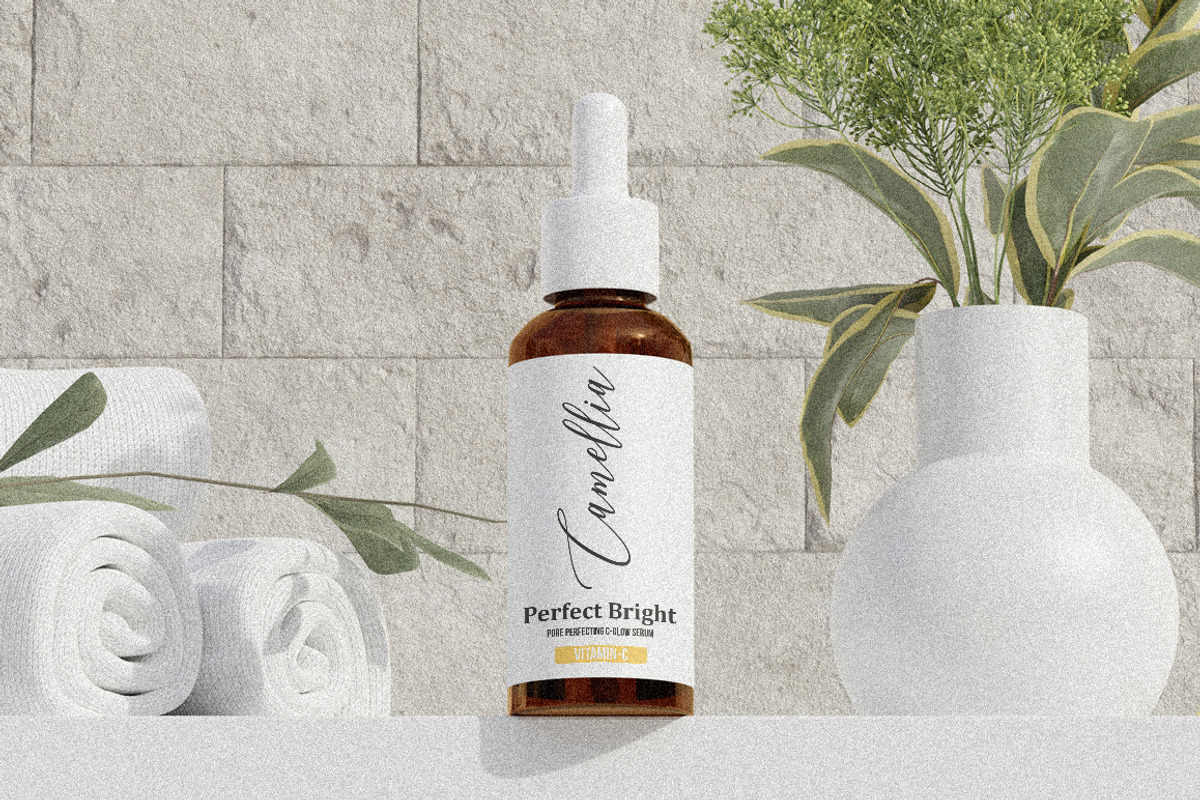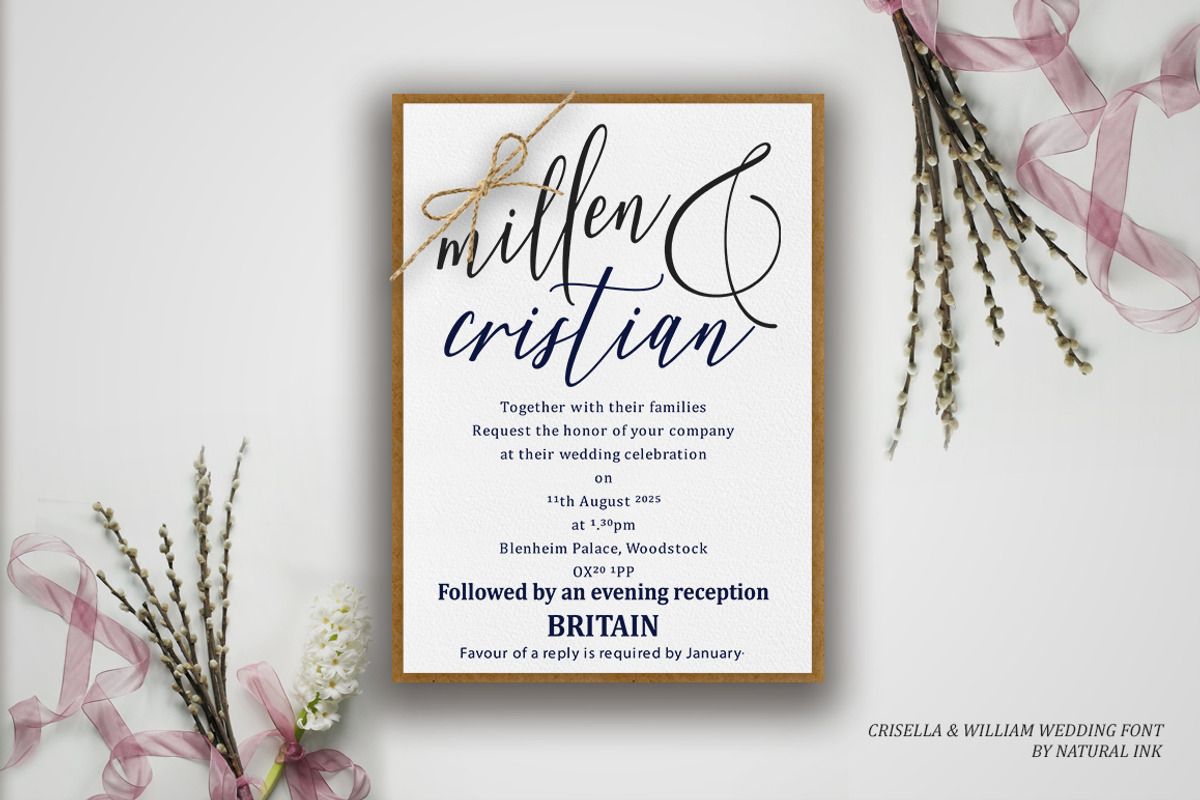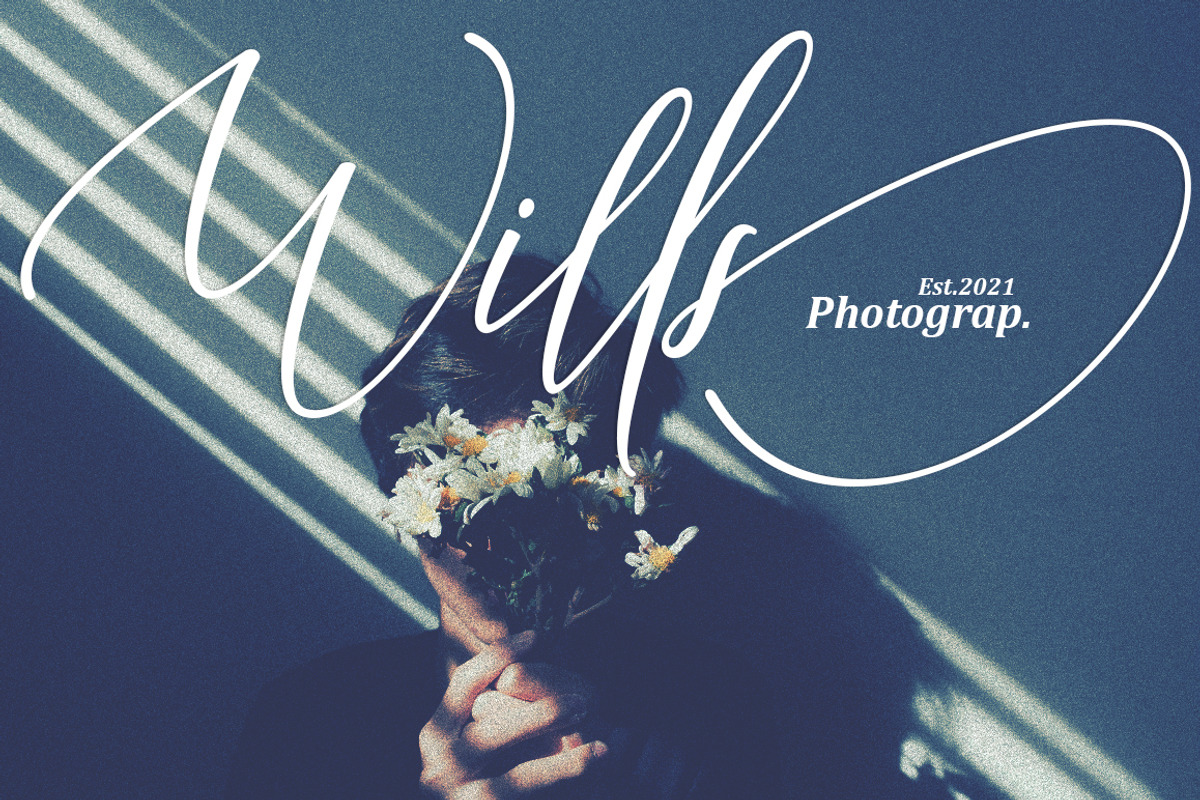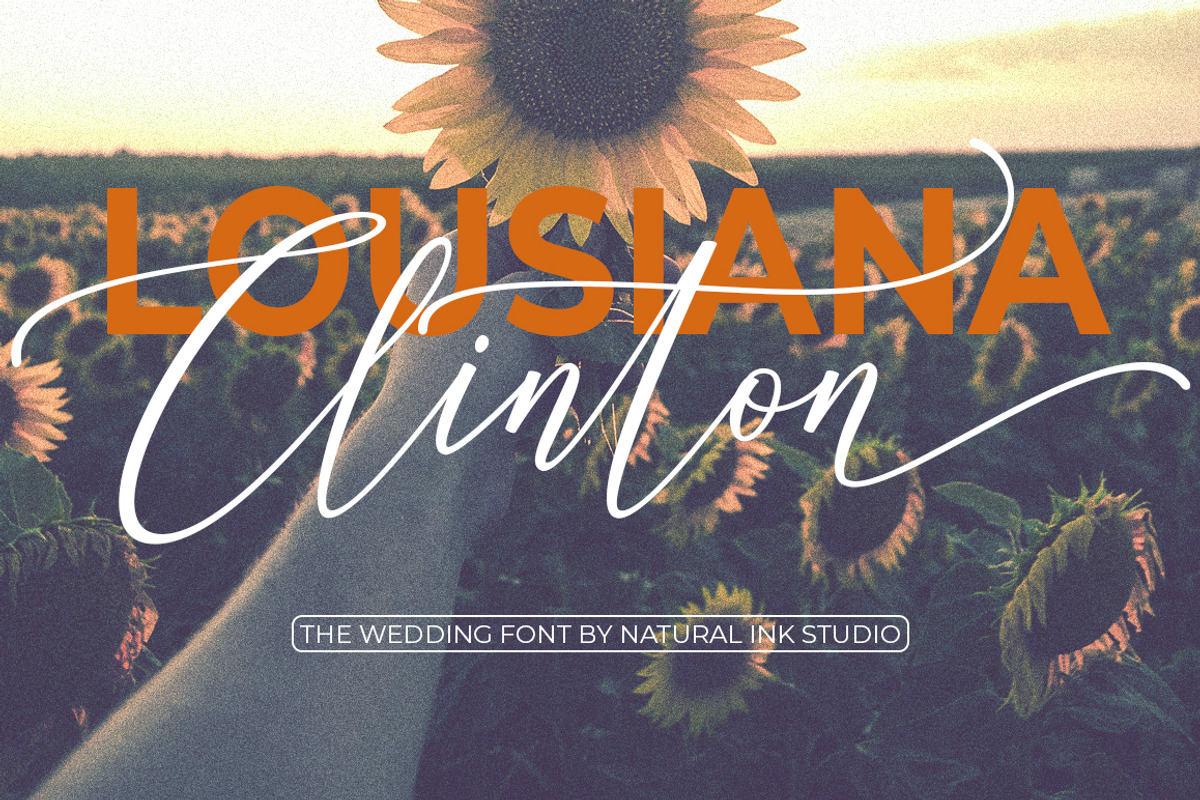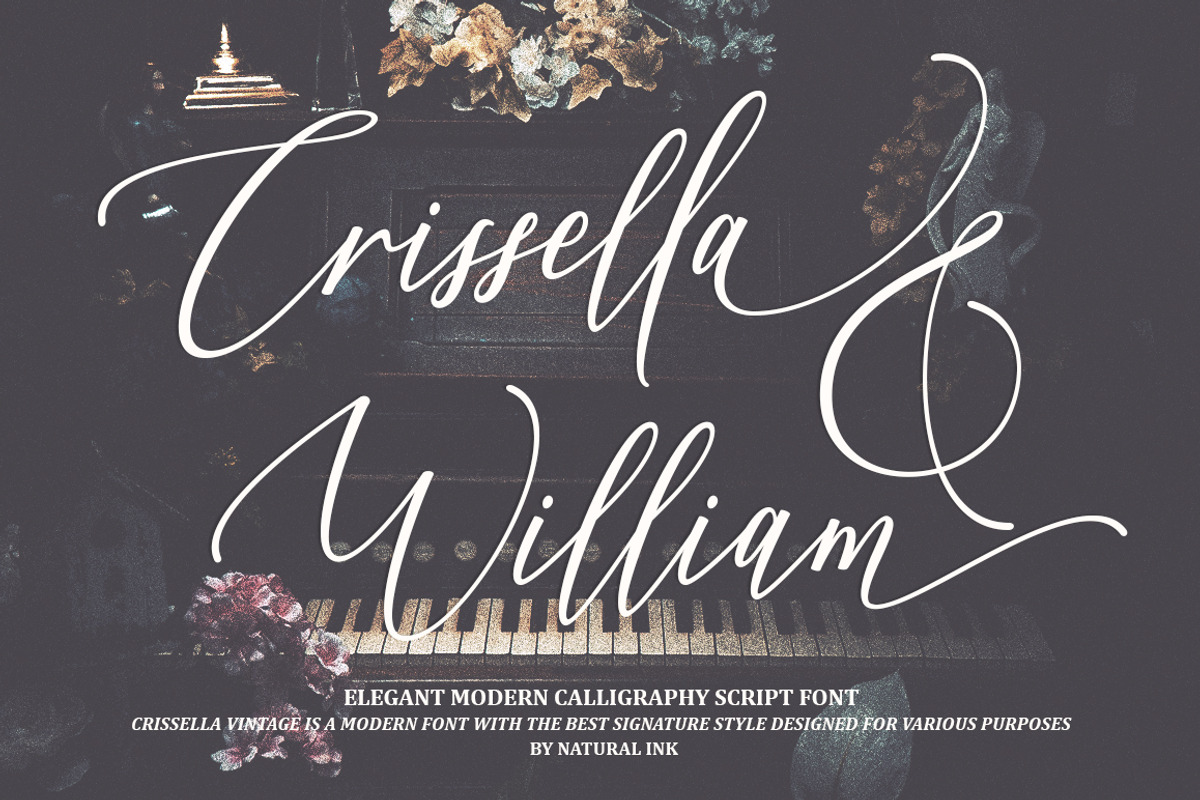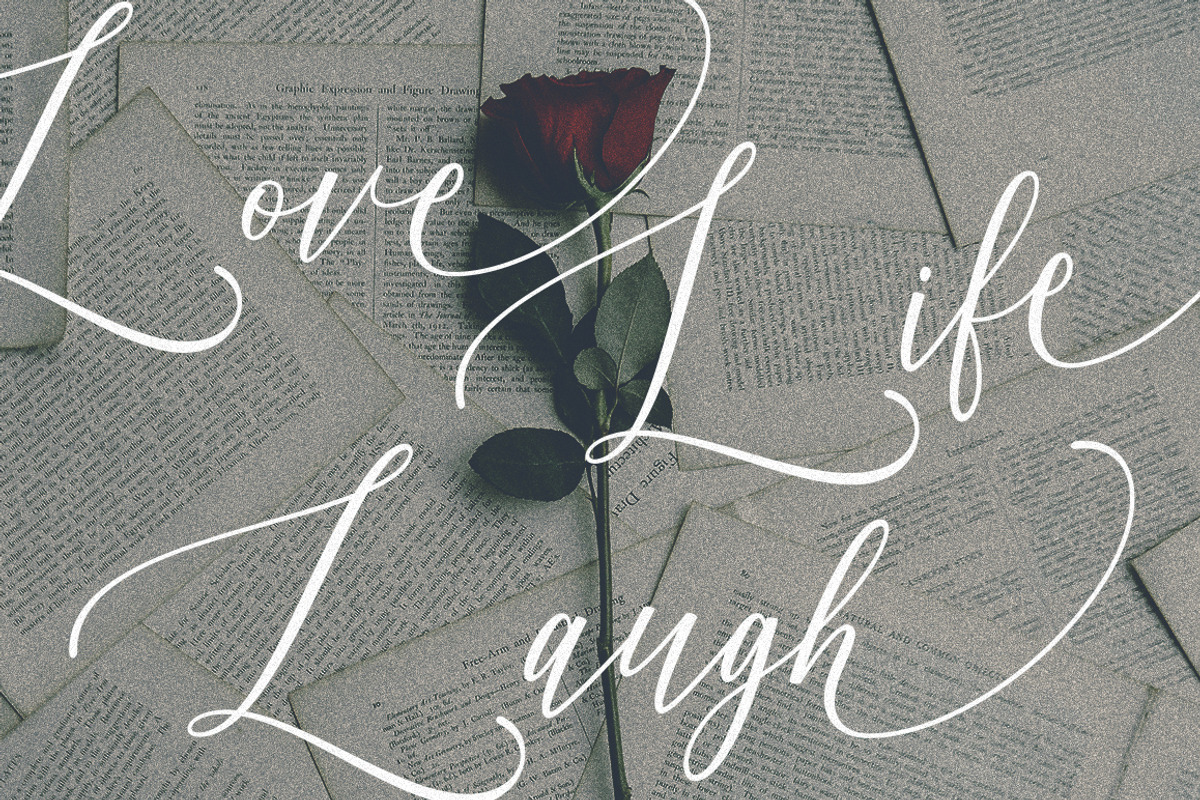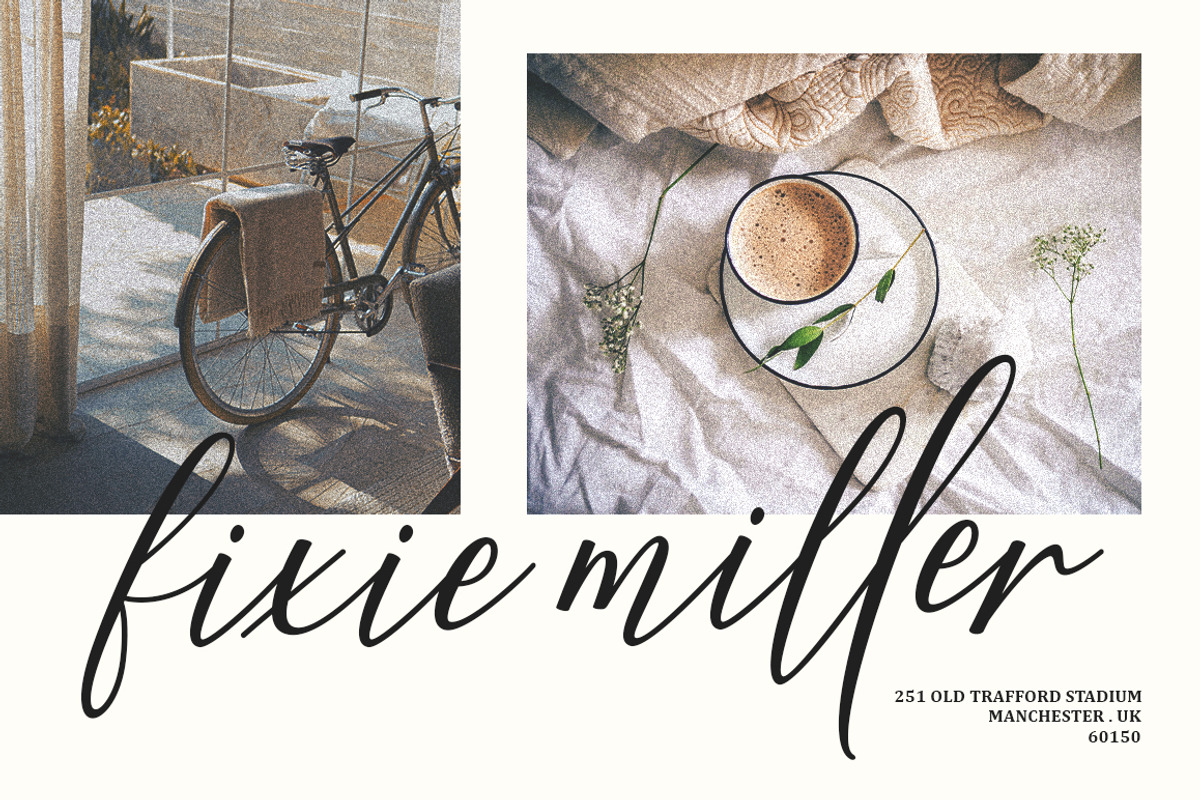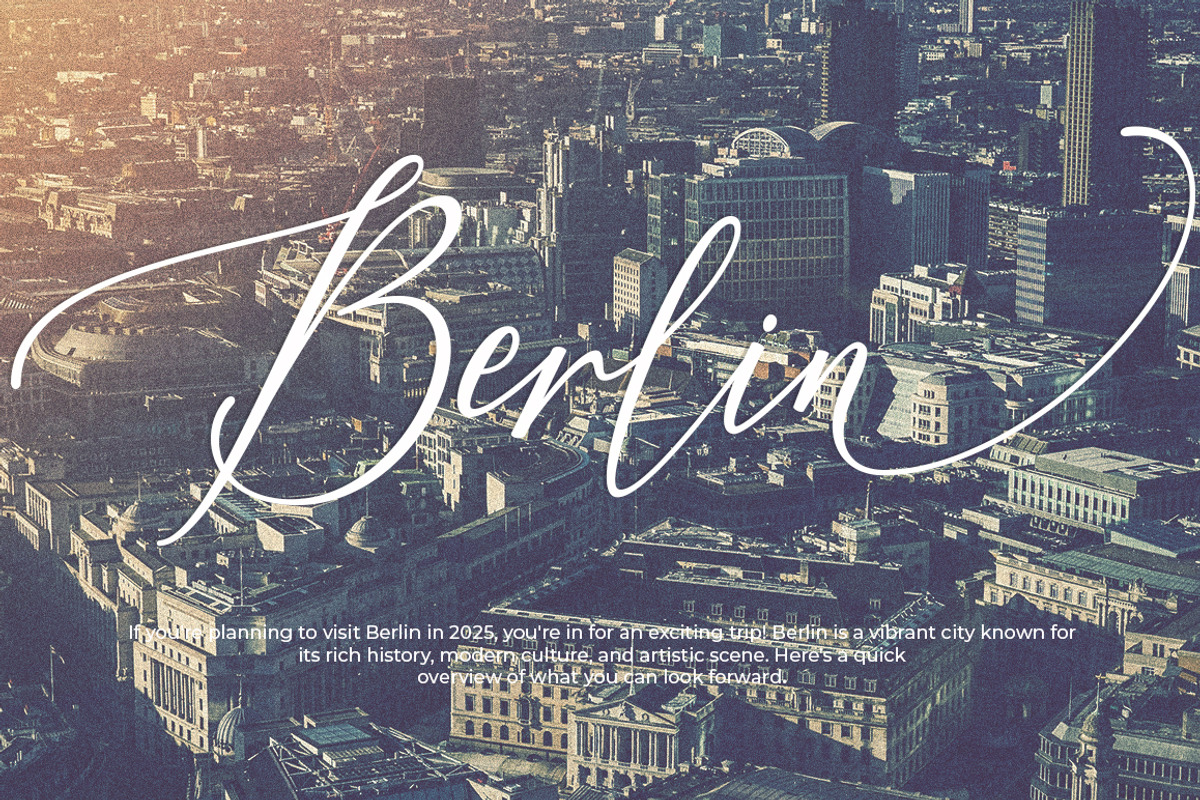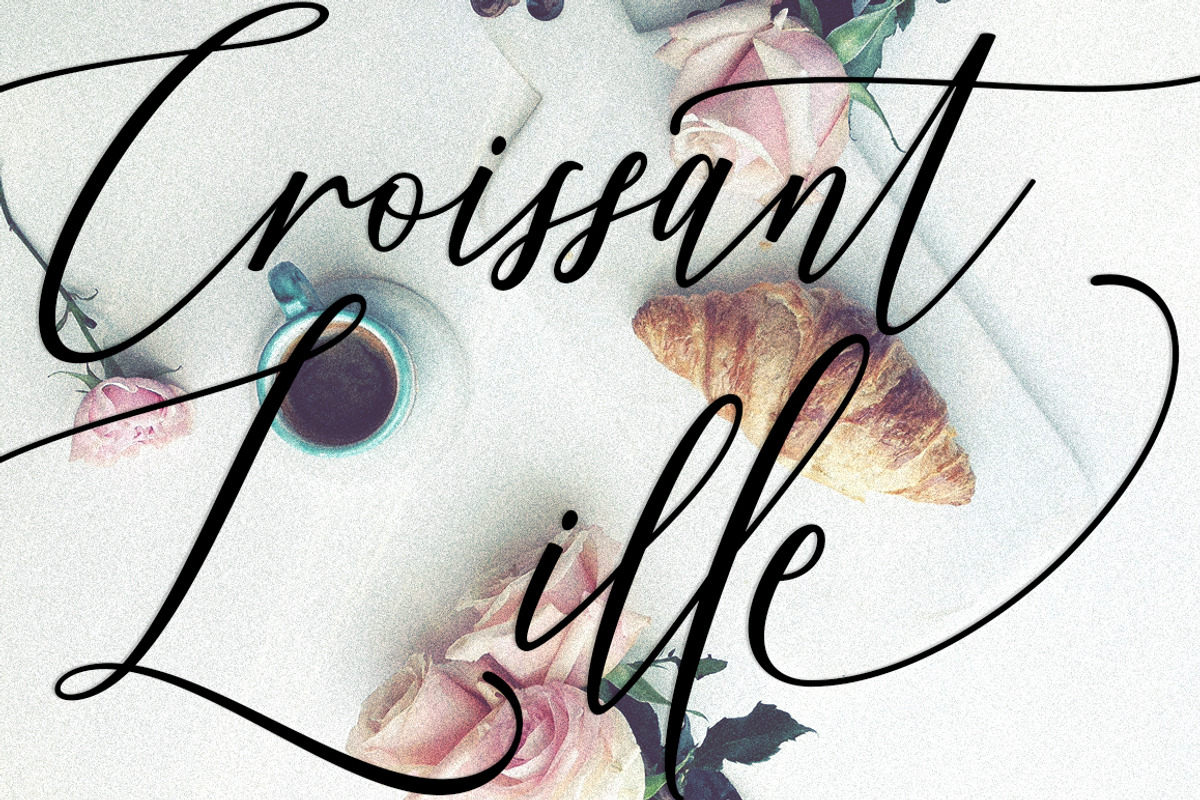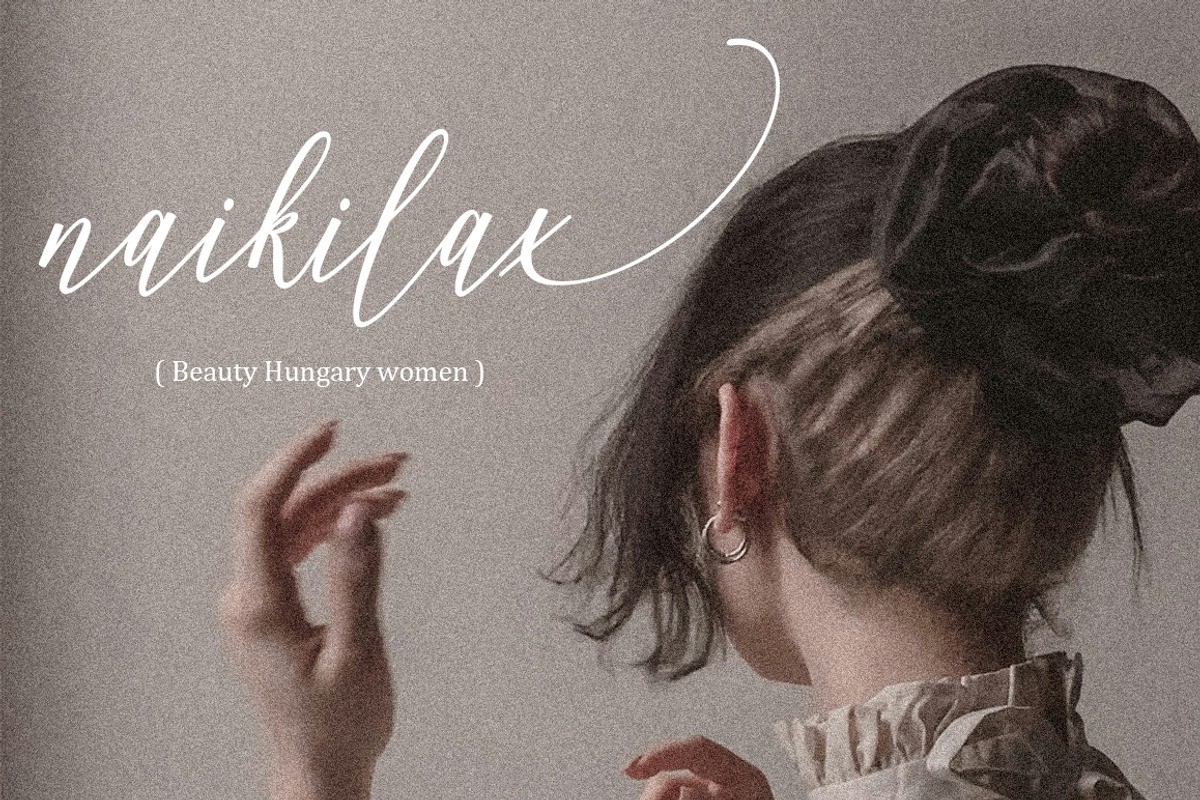
Crisella & William
Crisella & William Modern Semi Signature is a natural handwritten font, this font Is perfect for logos, invitations, stationery, wedding designs, social media posts, advertisements, product packaging, product designs, label, photography, watermark, special events, or anything.
Crisella & William Semi Signature comes with a full set of uppercase and lowercase letters, lowercase swashes, multilingual symbols, numerals, punctuation.